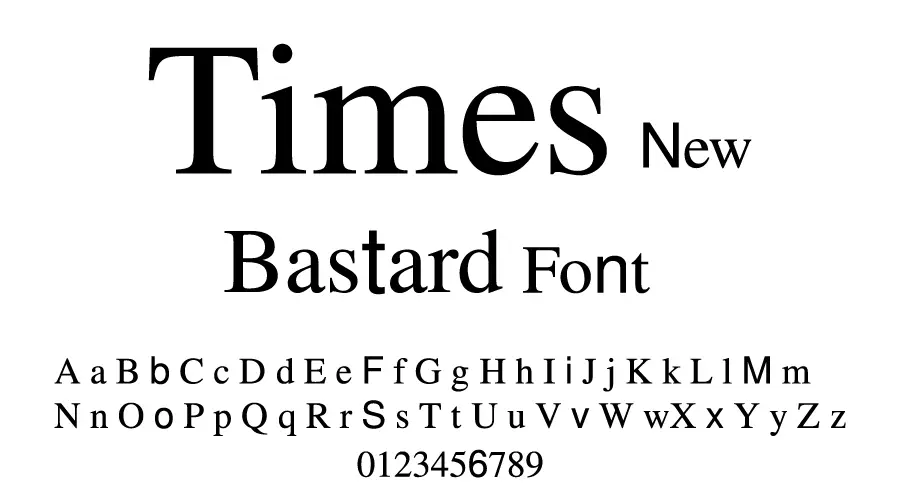
If you are looking for a font that can surprise and confuse your readers, you should check out Times New Bastard font. This font hybrid of Times New Roman and Arial switches every seventh letter to a jarringly sans serif style. It is perfect for pranking your friends, colleagues, or teachers or experimenting with typography and readability. Now let’s talk about the font and we will tell you everything we know about it.
Where Did Times New Bastard Come From?
Times New Bastard font is a typeface created by Tumblr user Ommanyte in 2019 as a terrible idea to destroy two fonts together. The font was later developed by Weiweihuanghuang, a graphic designer and typographer who uploaded the font to GitHub.
Times New Bastard font is a typeface with humor and chaos. Its deceptive look combines classic and elegant Times New Roman with the modern and simple Arial. The font has a random and unpredictable feel that switches every seventh letter to a sans-serif style, creating contrast and confusion. The font has a retro and urban feel that reflects the internet and meme cultures.
Where to Use Times New Bastard Font
Times New Bastard font is a typeface that you can use for various purposes. But it is especially suitable for projects that require a prank or an experiment. The font can catch the viewers’ attention with its surprising appearance and make them laugh or rage with its unique style.
This font offers opportunities for both pranks and experiments. You can use it to create hilarious jokes, fake documents, and funny visuals. It will also serve as a tool to test typography and explore emotional responses to different fonts.
Times New Bastard font is a typeface that can surprise and confuse readers. It is a hybrid of Times New Roman and Arial that switches every seventh letter to a jarringly sans serif style. You can use this font to prank your friends, colleagues, or teachers or experiment with typography and readability.